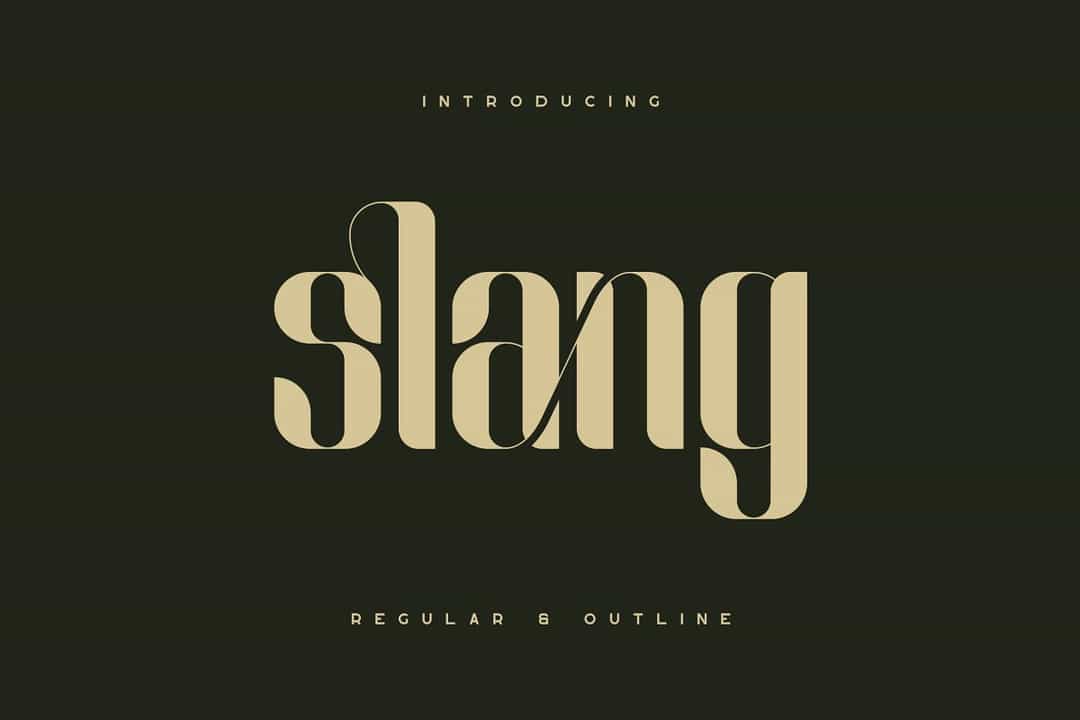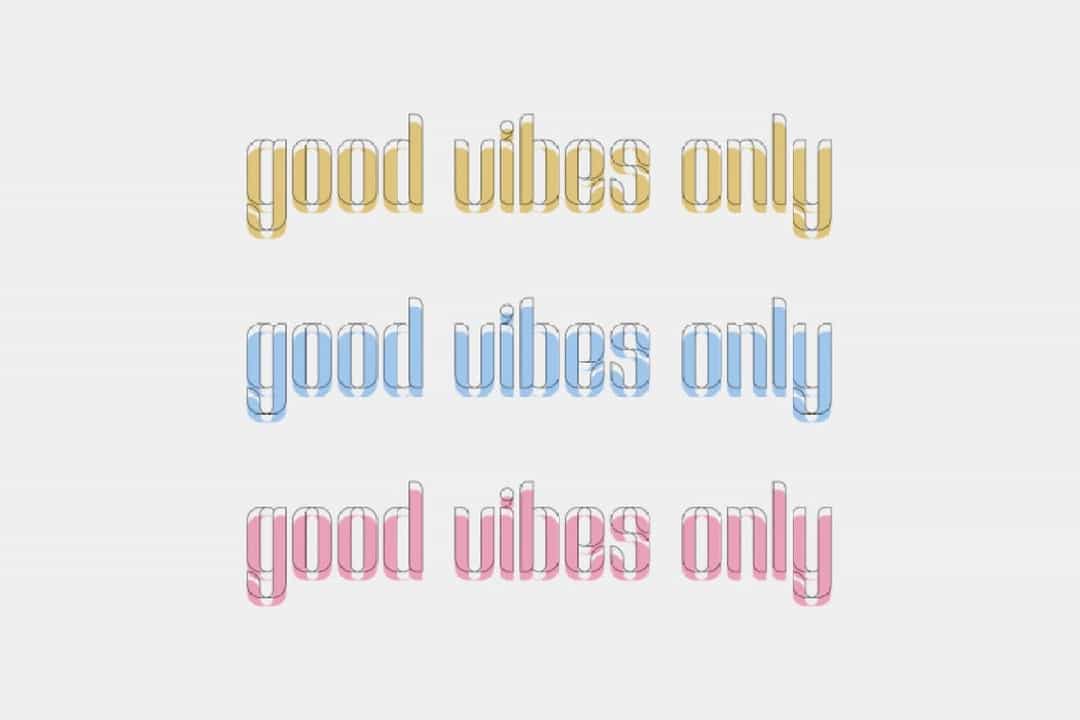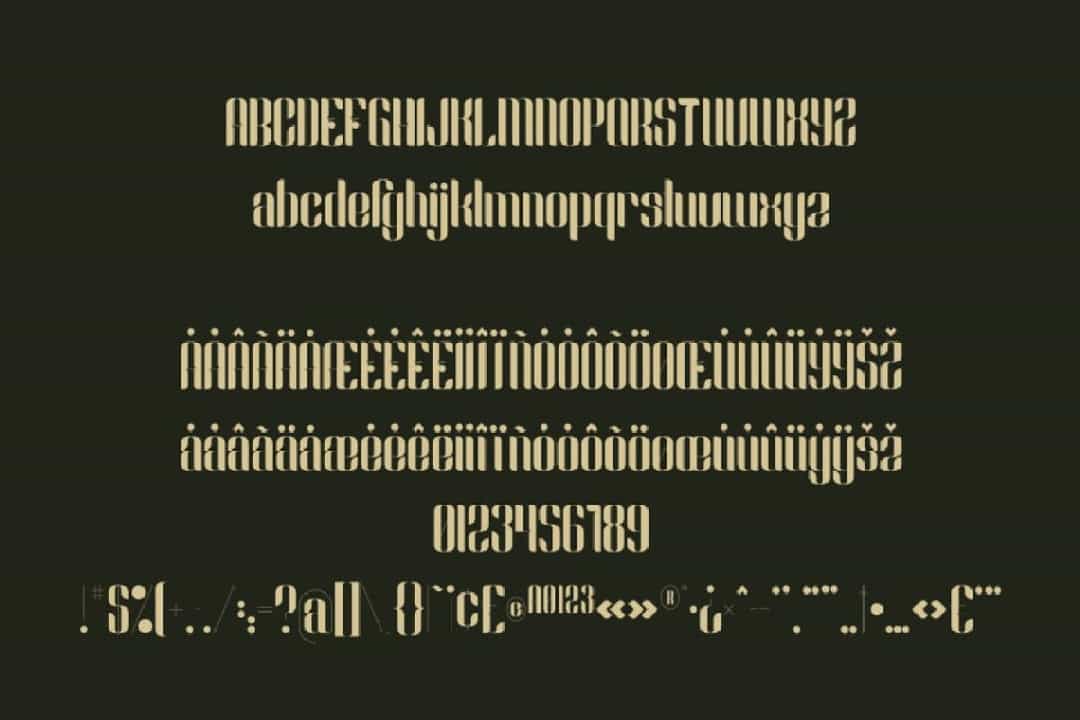
Slang is a bold, clean font with regular and outline versions that are filled with alternate and ligature glyphs. It is a very adaptable font that can be used for both big and small sizes. Slang is ideal for branding projects, home-ware designs, product packaging, magazine headers – or even as a stylish text overlay to any background image.